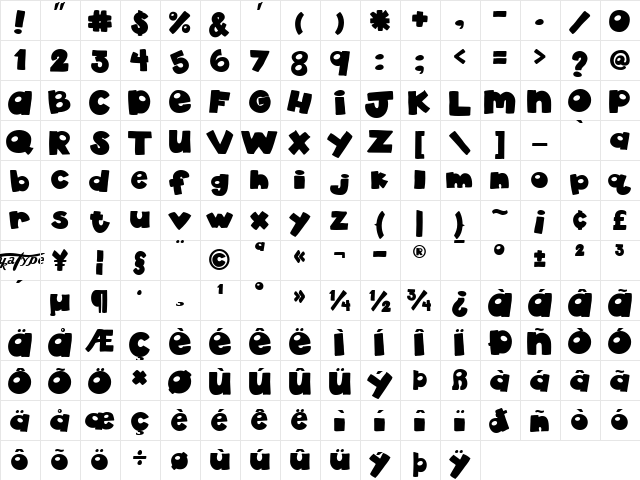
akaDylan Plain Regular
| Foundry | James Milligan |
| Designer | James Daniel Milligan |
Design Context for akaDylan Plain Typeface
akaDylan Plain is a composed and adaptable typeface that performs quietly and consistently across a wide range of design contexts.